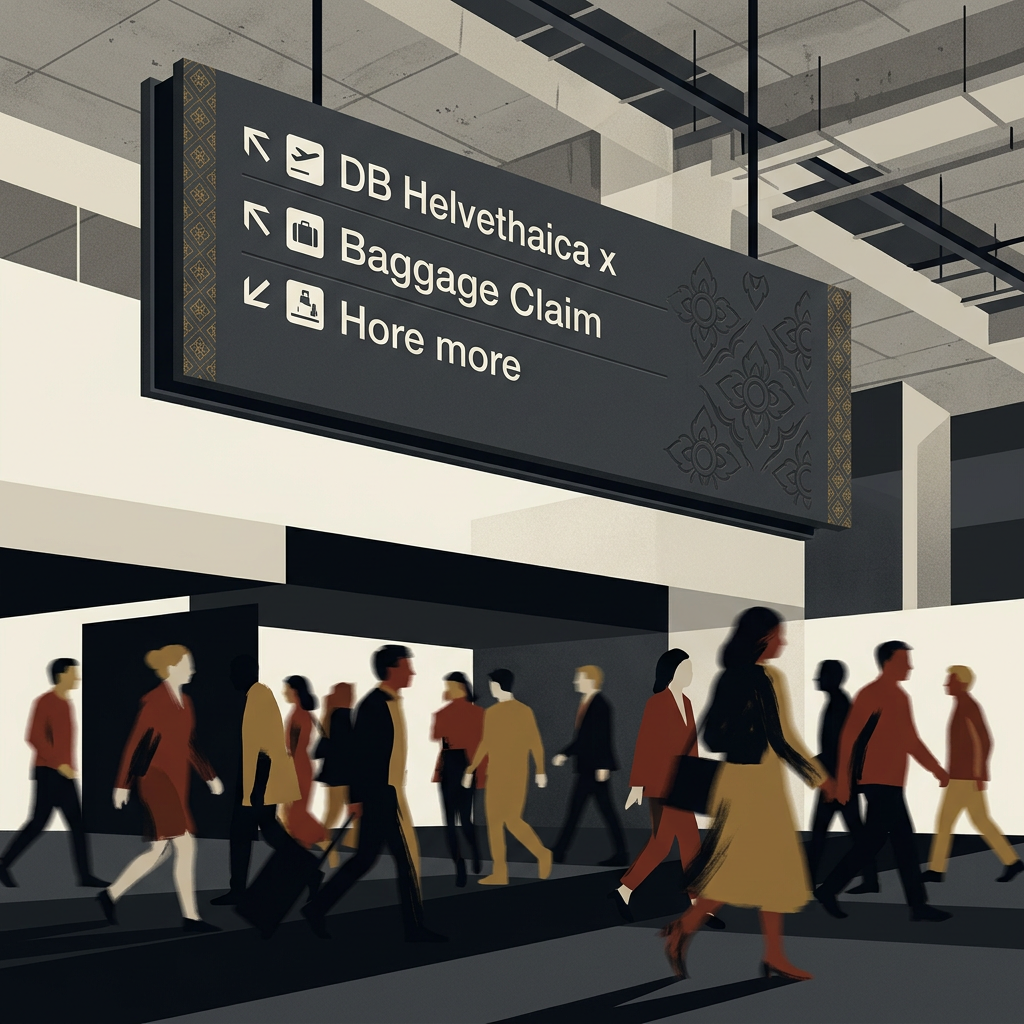
DB Helvethaica X
ดีบี เฮลเวไทก้า เอ็กซ์
DB Helvethaica X specimen showing Thai and Latin characters
Designer
Parinya Rojarayanond (DB Fonts)
Foundry
DB Fonts (DB Designs Co., Ltd.)
Weights
UltraLight, Thin, Light, Regular, Medium, Bold, Black
Latin support
Yes
Released
2010
What DB Helvethaica X is
DB Helvethaica X (ดีบี เฮลเวไทก้า เอ็กซ์) is a paid Thai corporate sans from DB Fonts that no longer exists under that name. In 2015 the foundry withdrew it and brought the same family back as DB Heavent, which is the product you buy today. It is not free, it has never been on Google Fonts, and every “DB Helvethaica X free download” page is distributing an unauthorised copy.
The foundry says this itself. The DB Heavent bundle page on dbfont.biz describes the set as “ฟอนต์อัพเกรดจาก ดีบี เฮลเวติก้า” — the upgraded font from DB Helvethaica. That one line is the clearest confirmation available that the two names are one typeface.
The name was always the tell: Helvetica plus Thai. That places the family in the loopless school of Thai type innovated by Manop Srisomporn, whose Manoptica was released in 1973 and drawn to invoke Helvetica (Wikipedia — Thai typography, accessed 22 August 2026). The same article names DB Design as Thailand’s first digital type foundry, co-founded by Parinya Rojarayanond. For where DB sits against the other Thai foundries, see the DB Fonts catalogue.
Every DB Helvethaica X weight, including Bold
DB Helvethaica X shipped seven weights — UltraLight, Thin, Light, Regular, Medium, Bold and Black — in three widths (regular, Condensed, Extended), each with a matching italic: 42 styles in total.